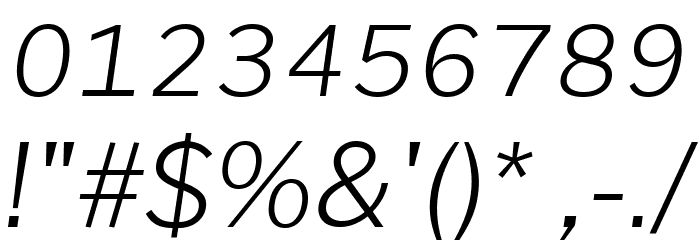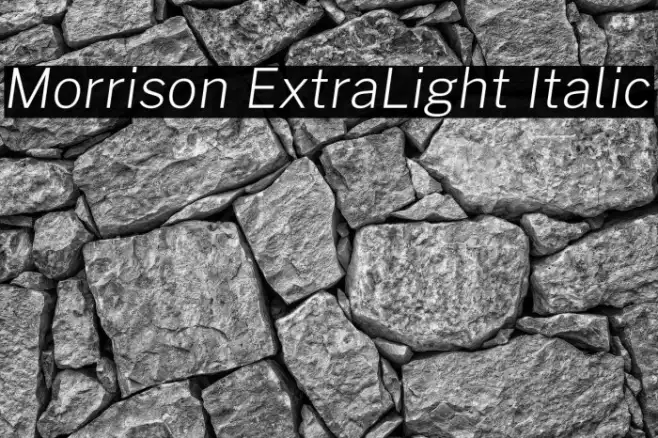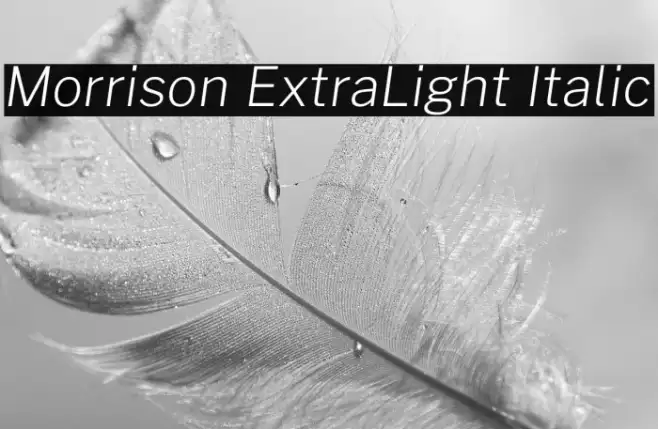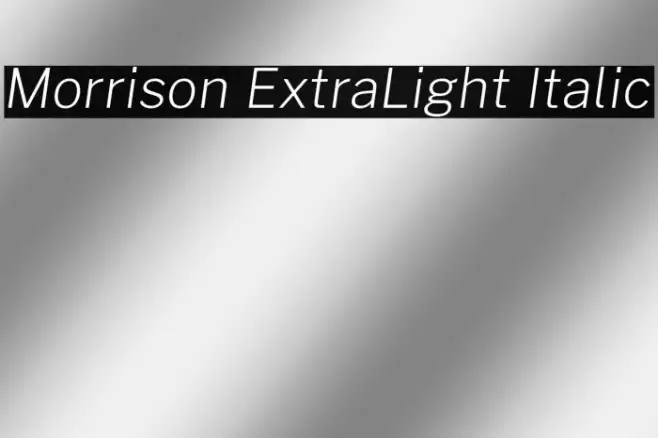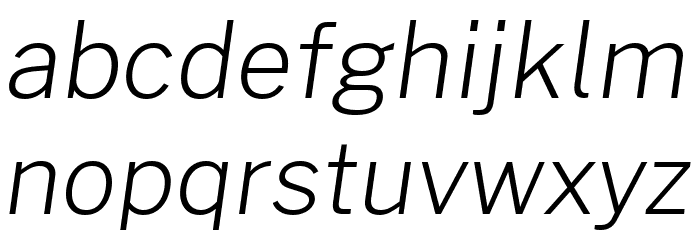
Morrison ExtraLight Italic Font
Morrison ExtraLight Italic Description
This font exhibits a sleek and modern aesthetic with its extra light weight and italic style. The characters are elegantly slanted, providing a sense of motion and fluidity. The clean lines and minimalistic design make it highly legible, even at smaller sizes. The font maintains a consistent stroke width throughout, contributing to its refined and sophisticated appearance. The spacing between characters is balanced, ensuring readability while maintaining a stylish look. This typeface is versatile, suitable for a variety of design applications where a contemporary and elegant touch is desired.
| Proposed Projects | Ideal for fashion magazines, modern branding, elegant invitations, and minimalist websites. |